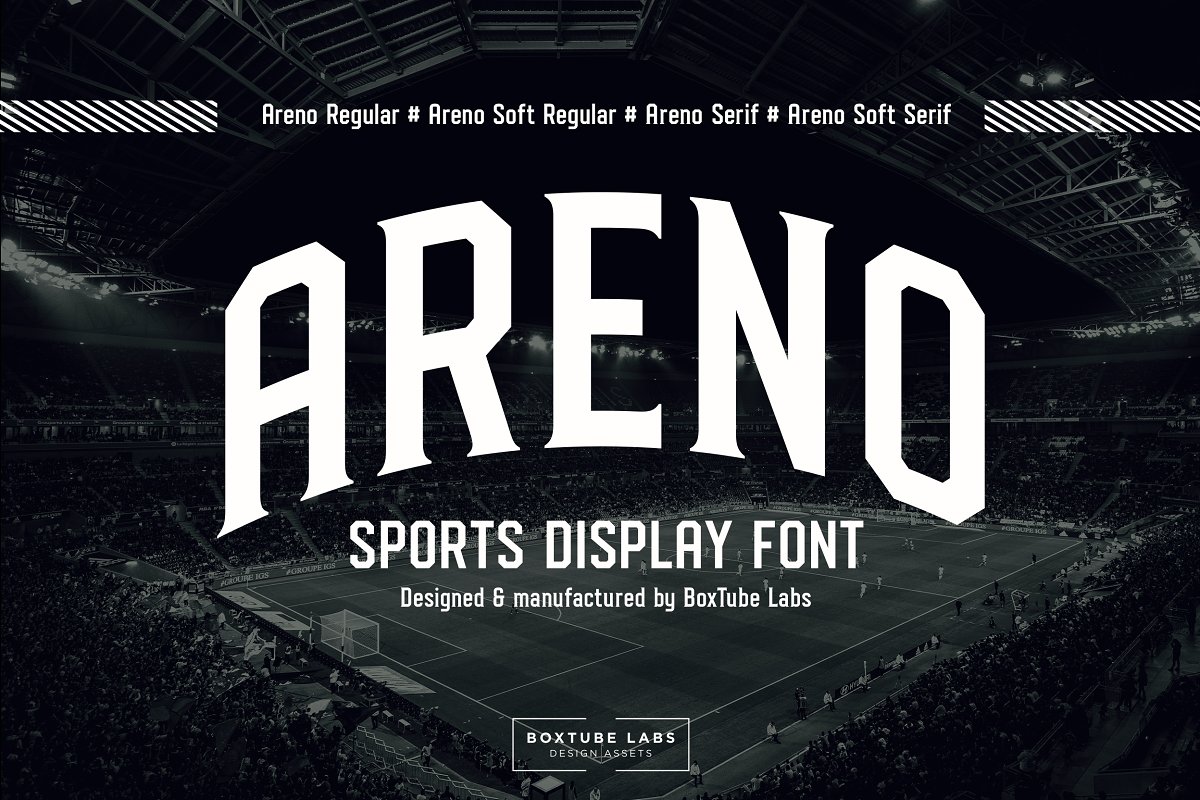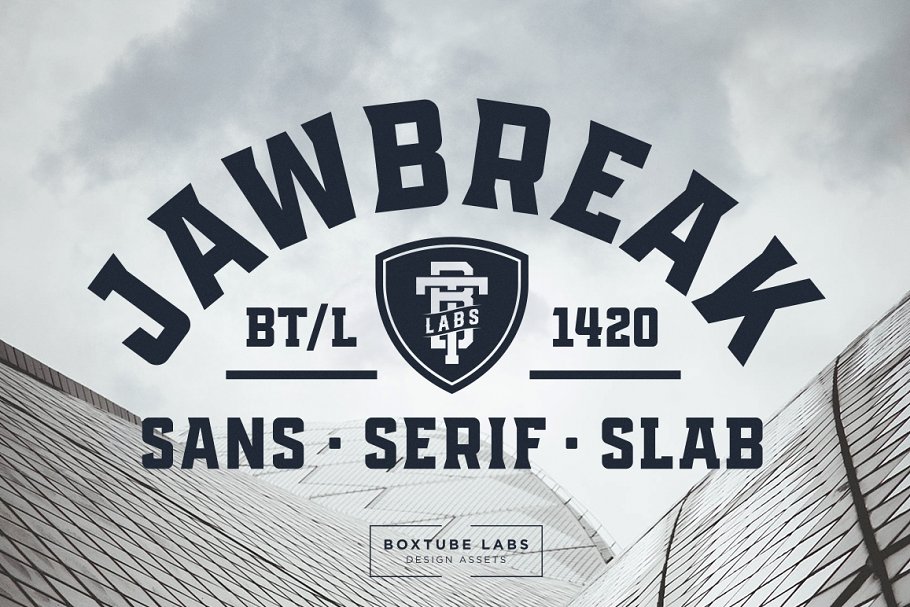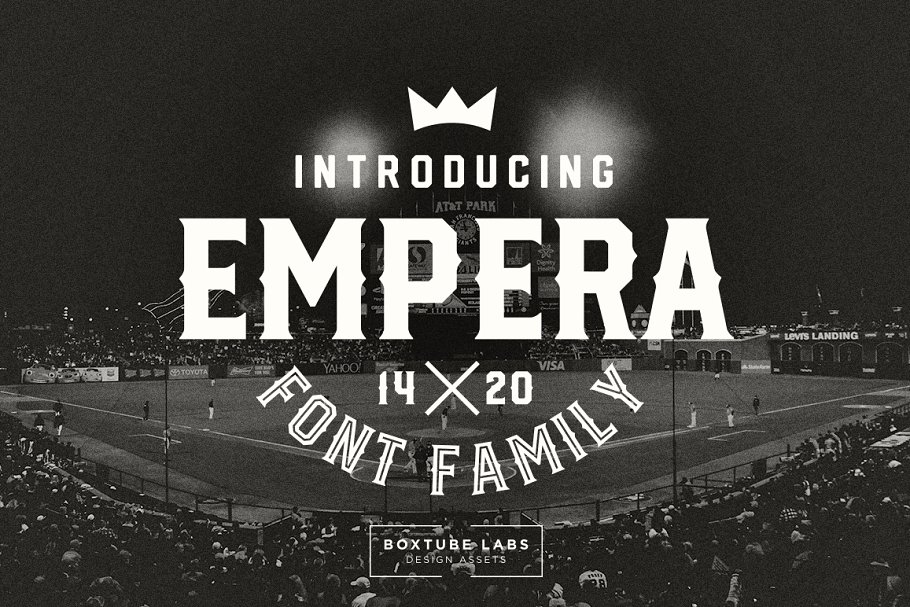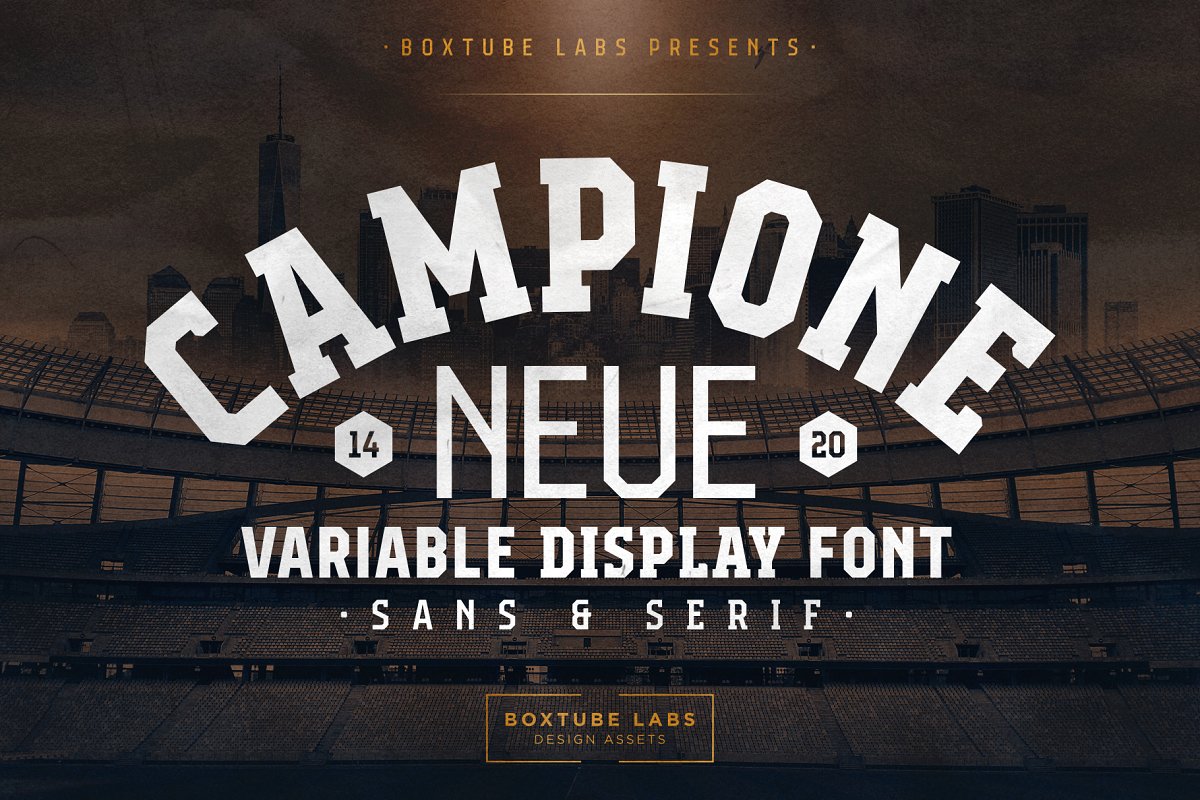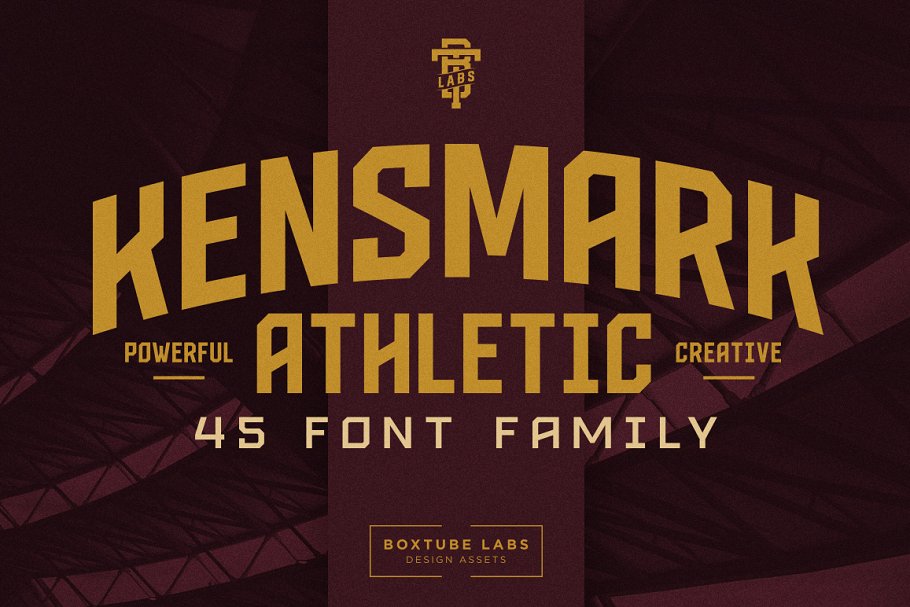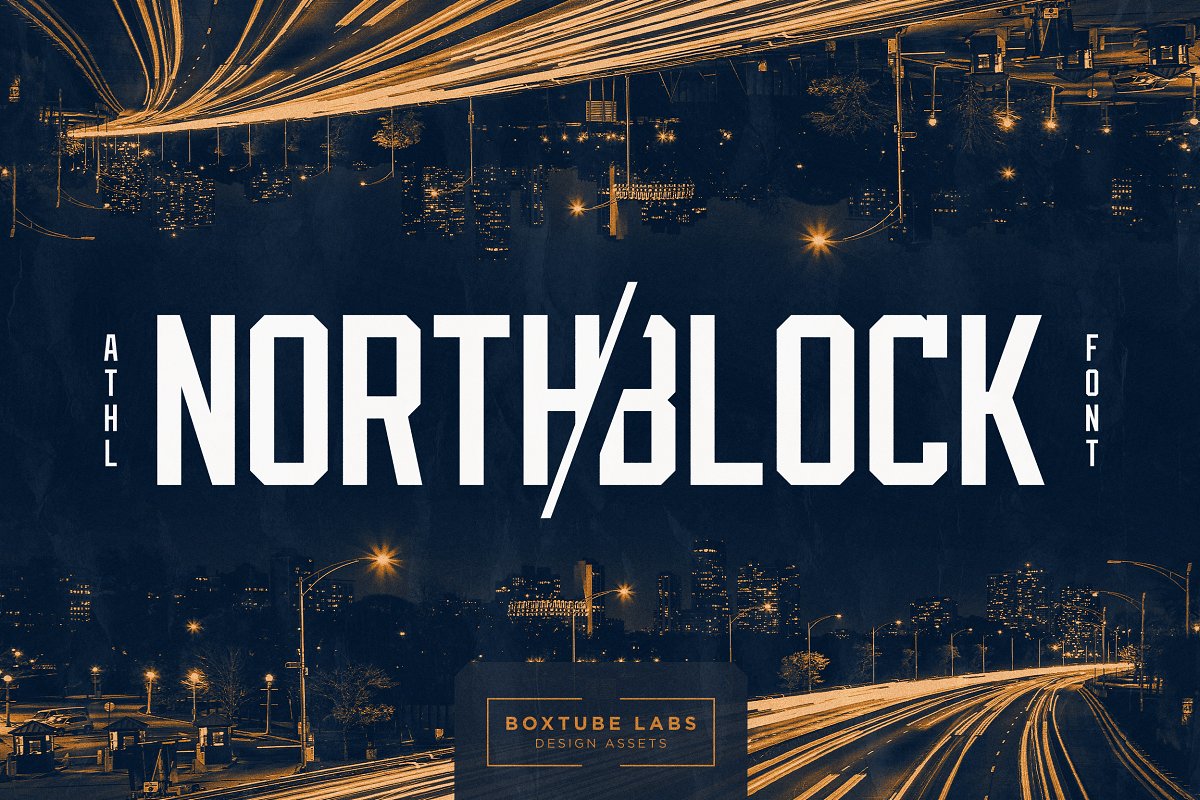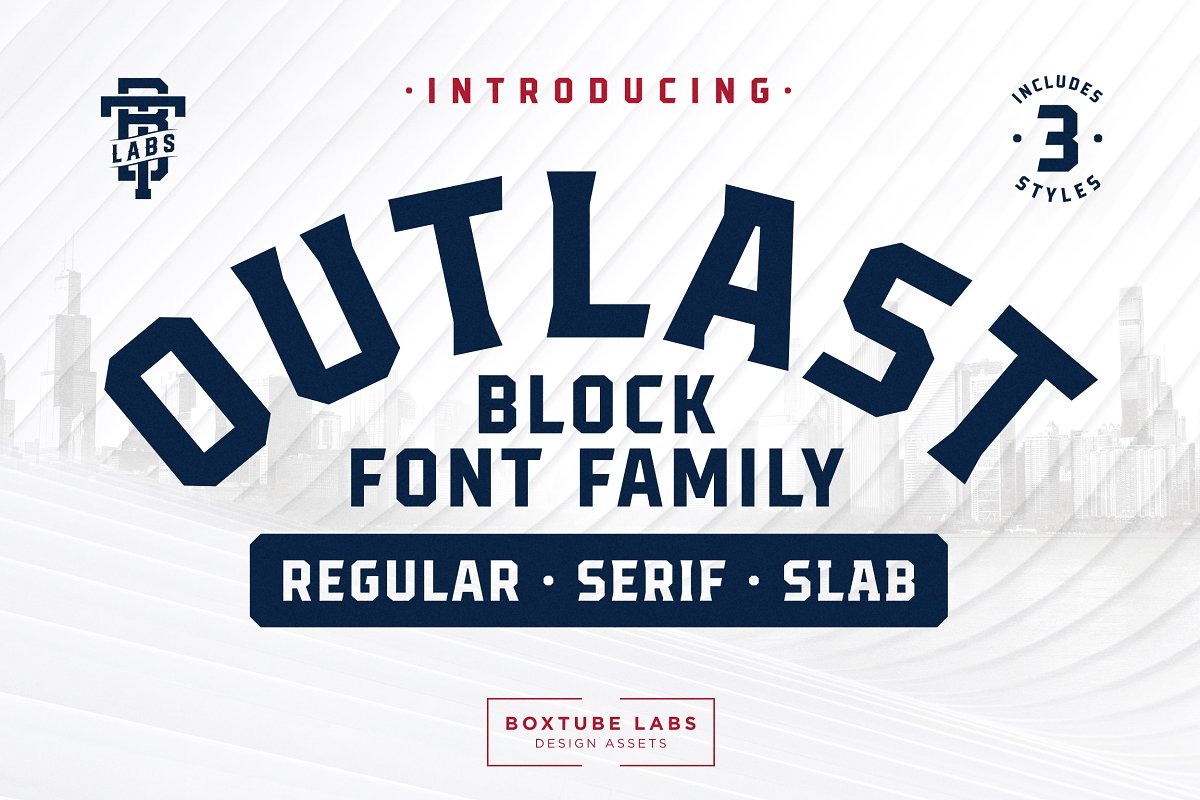
About the Sports Display Font Bundle BTL.ALL
BoxTube Labs presents: Sports Display Font Bundle BTL, ALL – a collection of ALL our fonts, 18 sporty and athletic type families with a total of 122 fonts! This bundle features strong, confident and powerful typefaces designed to work great with sports logos, club branding, apparel applications, labels and more, including our top sellers Jawbreak, Areno, Empera, Kensmark and Campione Neue